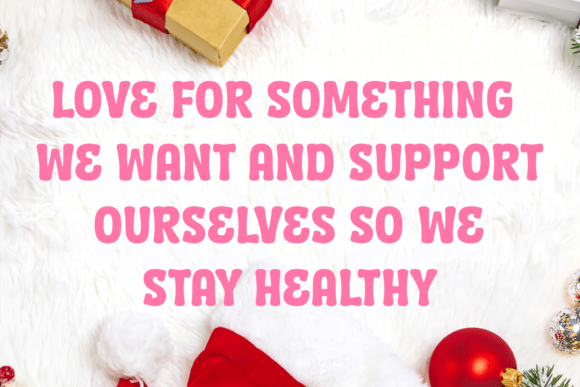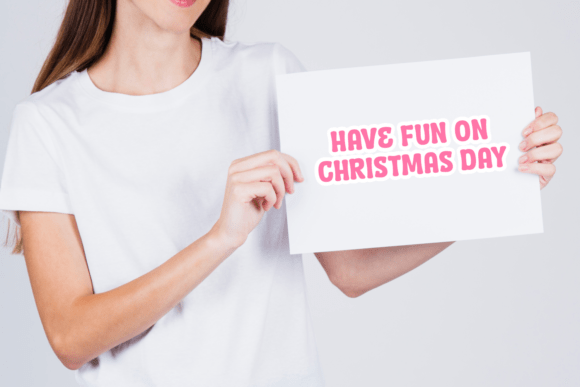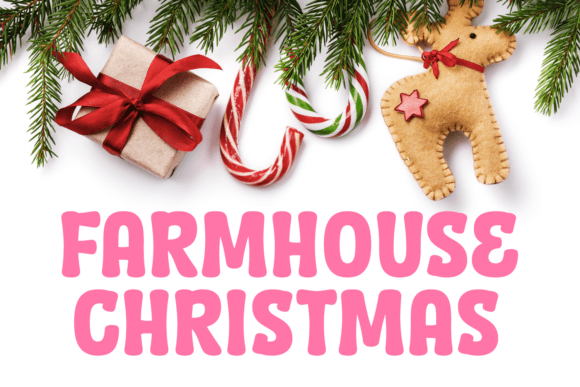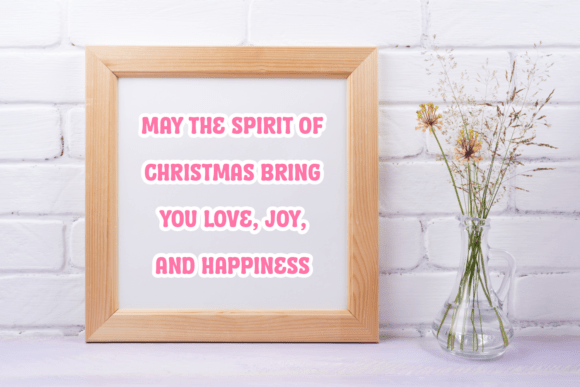
Introducing Christmas Appears Font: The Ultimate Festive Display Font
Are you looking for a font that embodies the joy and merriment of Christmas? Look no further than “Christmas Appears,” a superbly playful and whimsical font that’s perfect for turning your festive ideas into enchanting designs. This lively display font has an undeniable charm that’s sure to bring a hint of Winter Wonderland to your projects.
The Perfect Font for Festive Designs
Christmas Appears is ideal for designing anything from Christmas cards, festive stickers, logo designs, or a fun background for your social media posts. Its stylish, groovy retro style, and its twinkle of festivity, make it suitable for both kids and adults. Whether you’re a designer, crafter, or simply someone who loves the holiday season, this font is sure to inspire your creativity.
Incorporating the Spirit of Christmas
Every letter of the Christmas Appears font is tastefully crafted to evoke the spirit of Santa Claus, the jingling bells, the merry wishes, and the sparkling Christmas lights. Its playful and whimsical design is sure to bring a smile to anyone’s face, making it perfect for adding a touch of magic to your Christmas designs.
With Christmas Appears, the design possibilities are endless. Use it to caption your candid Christmas Day pictures or add a dash of magic to your Christmas Eve invitations. You can also use it as an attractive element for your Christmas decorations and Christmas wreath designs, or to add a unique touch to your gift tags.
Key Features of Christmas Appears Font
- Playful and whimsical design
- Stylish, groovy retro style
- Twinkle of festivity
- Suitable for both kids and adults
- Perfect for Christmas cards, festive stickers, logo designs, and social media posts
- Endless design possibilities
Why Choose Christmas Appears Font?
There are many fonts to choose from, but Christmas Appears stands out from the rest. Its unique and festive design makes it perfect for the holiday season. Here are just a few reasons why you should choose Christmas Appears for your next design project:
- Instantly recognizable as a festive font
- Versatile and adaptable to different design styles
- High-quality and professional design
Tips for Using Christmas Appears Font
Here are a few tips for using Christmas Appears font in your designs:
- Use it as a headline or title font to grab attention
- Pair it with a simple font for body text to create contrast
- Use it consistently throughout your design to create a cohesive look
Christmas Appears font is the perfect addition to any design project that requires a touch of festive fun. Its playful and whimsical design, stylish retro style, and twinkle of festivity make it suitable for both kids and adults. With its endless design possibilities and key features, it’s no wonder that Christmas Appears is a superbly playful and whimsical font that’s perfect for turning your festive ideas into enchanting designs.